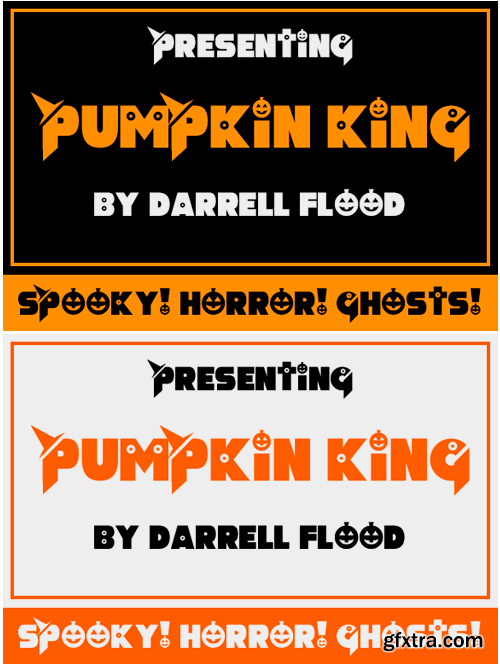
Pumpkin King Font
Pumpkin King is a decorative Halloween font in a bold, high-impact style with an emphasis on readability. Perfect for Halloween parties and spooky events!